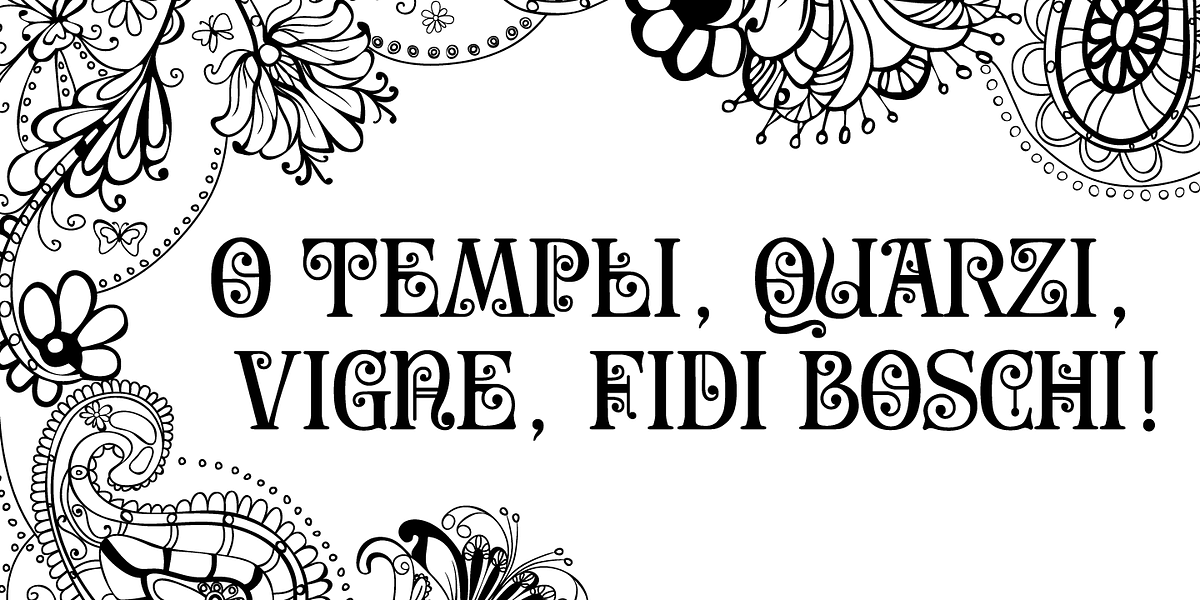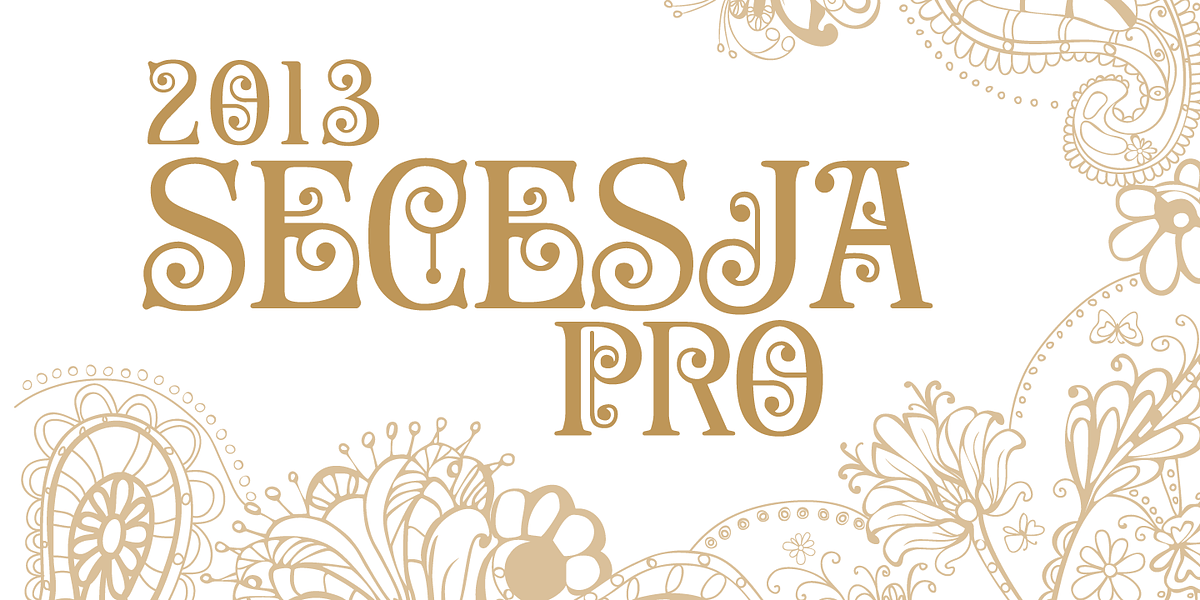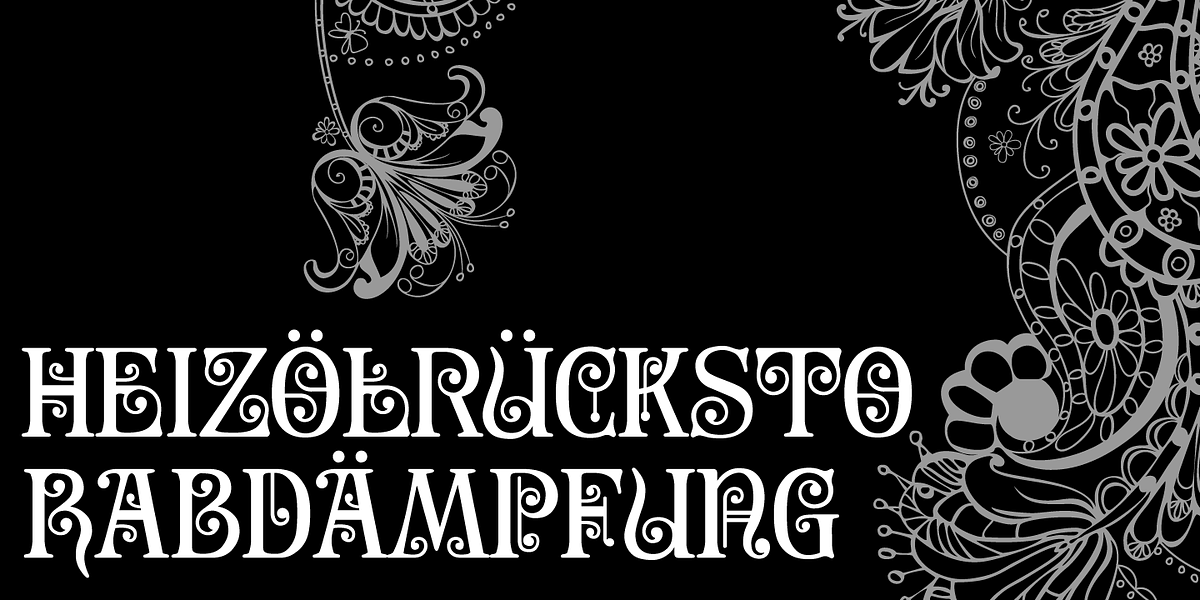
Secesja Pro
Secesja Pro is a redesigned version of the Secesja font. It's a decorative serif font characterized by its curly details and all-caps design.